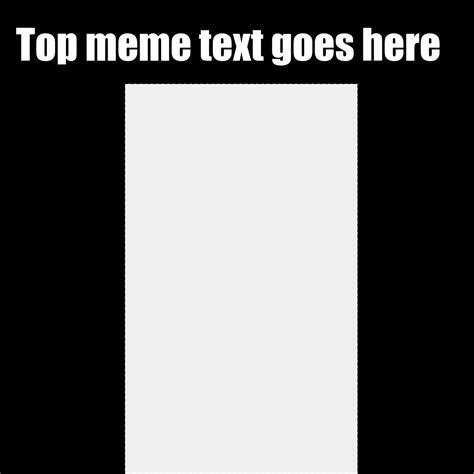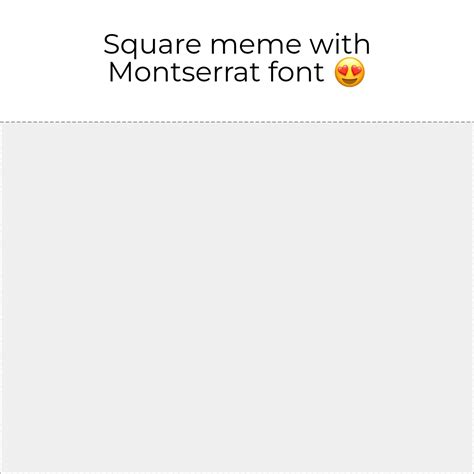
In the vast world of digital design, typography plays a crucial role in conveying messages effectively. One particular trend that has gained significant traction is the use of the White Background Meme Font. This font style, characterized by its bold, often humorous, and highly readable nature, has become a staple in meme culture and beyond. Whether you're creating memes, designing graphics, or simply looking to add a touch of humor to your projects, understanding the White Background Meme Font can be incredibly beneficial.
Understanding the White Background Meme Font
The White Background Meme Font is not a single font but rather a style that encompasses various fonts commonly used in meme creation. These fonts are typically bold, impactful, and designed to stand out against a white background. The popularity of this style can be attributed to its ability to grab attention quickly and convey messages in a clear and humorous manner.
Characteristics of the White Background Meme Font
The White Background Meme Font has several key characteristics that make it stand out:
- Bold and Impactful: These fonts are designed to be bold and eye-catching, ensuring that the text stands out against any background.
- High Readability: Despite their boldness, these fonts are highly readable, making them ideal for quick consumption of information.
- Versatility: They can be used in a variety of contexts, from memes and social media posts to graphic design projects.
- Humorous Tone: Many of these fonts have a playful and humorous tone, which aligns perfectly with the nature of memes.
Popular Fonts Used in the White Background Meme Font Style
While the White Background Meme Font is a style rather than a single font, there are several popular fonts that fall under this category. Some of the most commonly used fonts include:
| Font Name | Characteristics |
|---|---|
| Impact | Bold, chunky letters with a strong presence. |
| Comic Sans | Casual, playful, and highly readable. |
| Arial Black | Bold and modern, with a clean and sharp appearance. |
| Verdana | Clear and legible, often used for its readability. |
| Tahoma | Modern and clean, with a slightly rounded appearance. |
These fonts are just a few examples of the many options available. The key is to choose a font that aligns with the tone and message of your content.
How to Use the White Background Meme Font Effectively
Using the White Background Meme Font effectively involves more than just selecting the right font. Here are some tips to help you make the most of this style:
- Choose the Right Font: Select a font that complements the tone of your message. For humorous content, a playful font like Comic Sans might be ideal. For more serious content, a bold font like Impact could be more appropriate.
- Contrast is Key: Ensure that the font color contrasts well with the background. A white background paired with a dark font color can make the text stand out.
- Keep it Simple: Avoid overcrowding your design with too much text. The White Background Meme Font is best used for short, impactful messages.
- Experiment with Sizes: Play around with different font sizes to see what works best for your design. Larger fonts can be more impactful, while smaller fonts can be used for additional details.
By following these tips, you can create designs that are not only visually appealing but also effective in conveying your message.
💡 Note: Always consider the context in which you are using the font. What works for a meme might not be suitable for a professional presentation.
Creating Memes with the White Background Meme Font
Memes are a powerful tool for communication in the digital age. The White Background Meme Font is particularly well-suited for meme creation due to its bold and humorous nature. Here are some steps to create effective memes using this font style:
- Choose a Template: Start with a meme template that resonates with your audience. This could be a popular internet meme or a custom design.
- Select Your Font: Choose a White Background Meme Font that fits the tone of your meme. For example, Impact might be suitable for a bold, impactful message, while Comic Sans could be used for a more playful tone.
- Add Your Text: Write your message in a clear and concise manner. The text should be short and to the point, making it easy for viewers to understand quickly.
- Adjust the Size and Color: Ensure that the text is large enough to be read easily and that the color contrasts well with the background.
- Review and Share: Review your meme to ensure it looks good and conveys the intended message. Once you're satisfied, share it on your preferred platforms.
Creating memes with the White Background Meme Font can be a fun and creative process. By following these steps, you can create memes that are both engaging and effective.
Conclusion
The White Background Meme Font is a versatile and impactful typography style that has become a staple in digital design. Its bold, humorous, and highly readable nature makes it ideal for meme creation and beyond. By understanding the characteristics of this font style and how to use it effectively, you can create designs that are not only visually appealing but also effective in conveying your message. Whether you’re creating memes, designing graphics, or working on marketing materials, the White Background Meme Font offers a powerful tool for enhancing your projects.